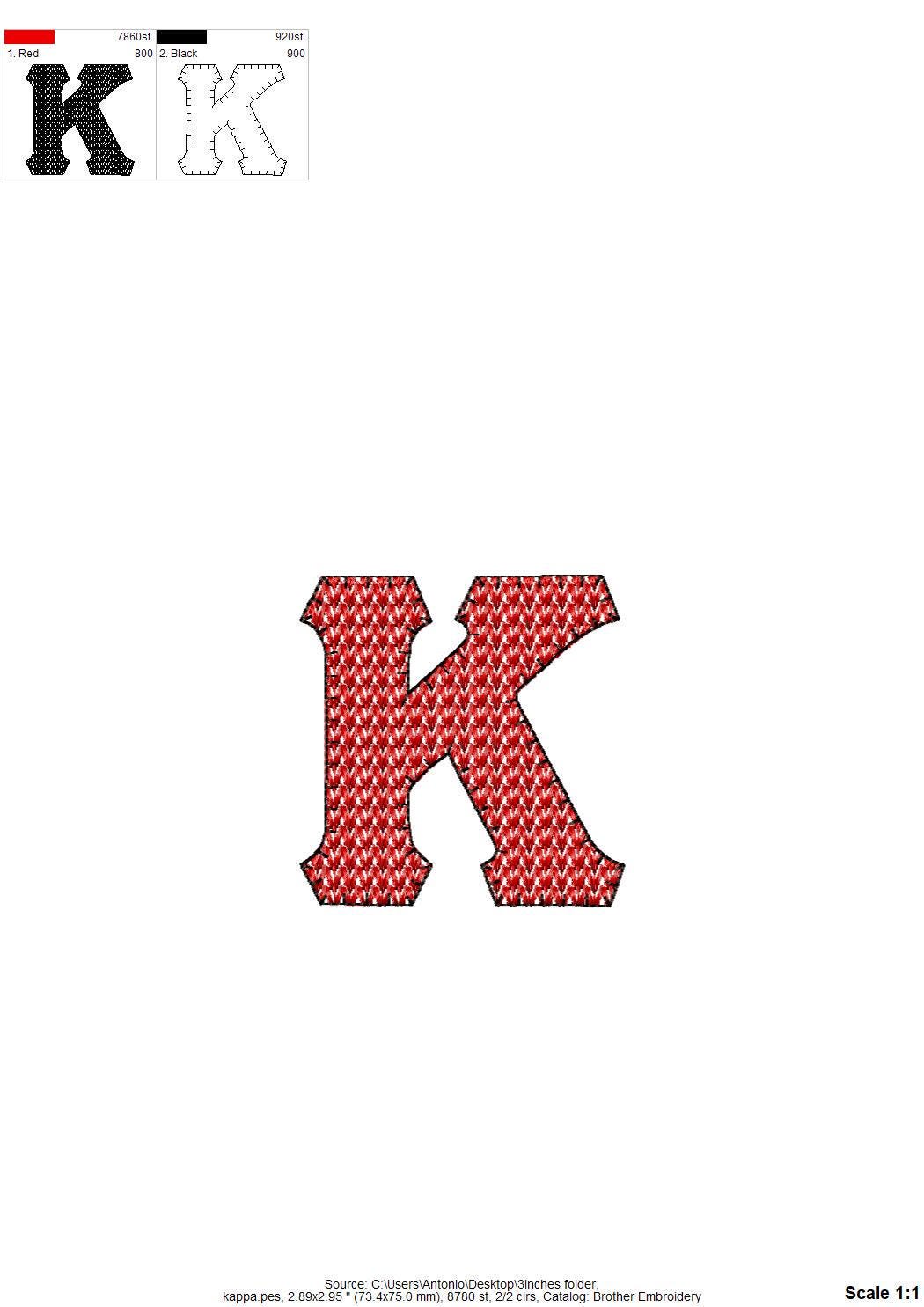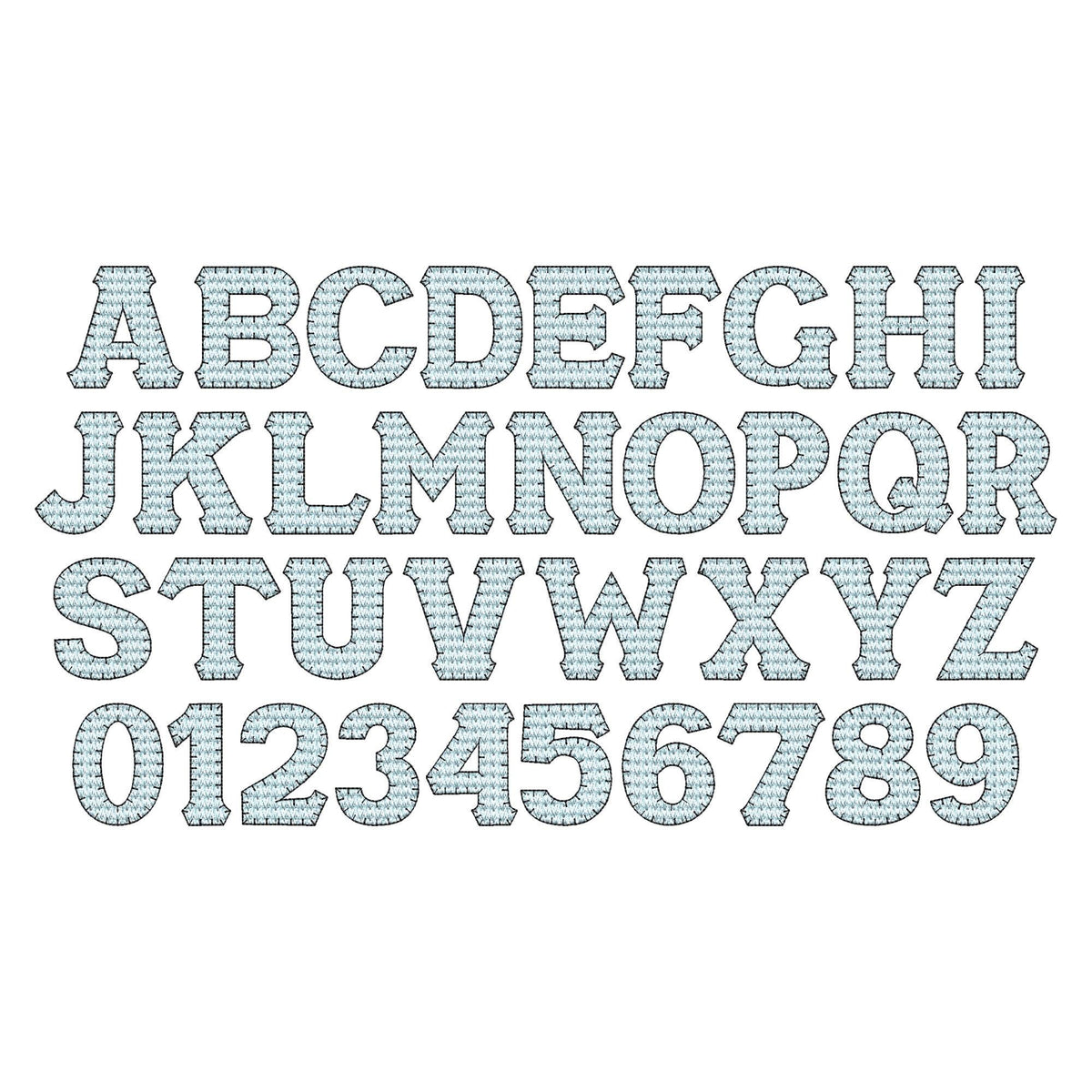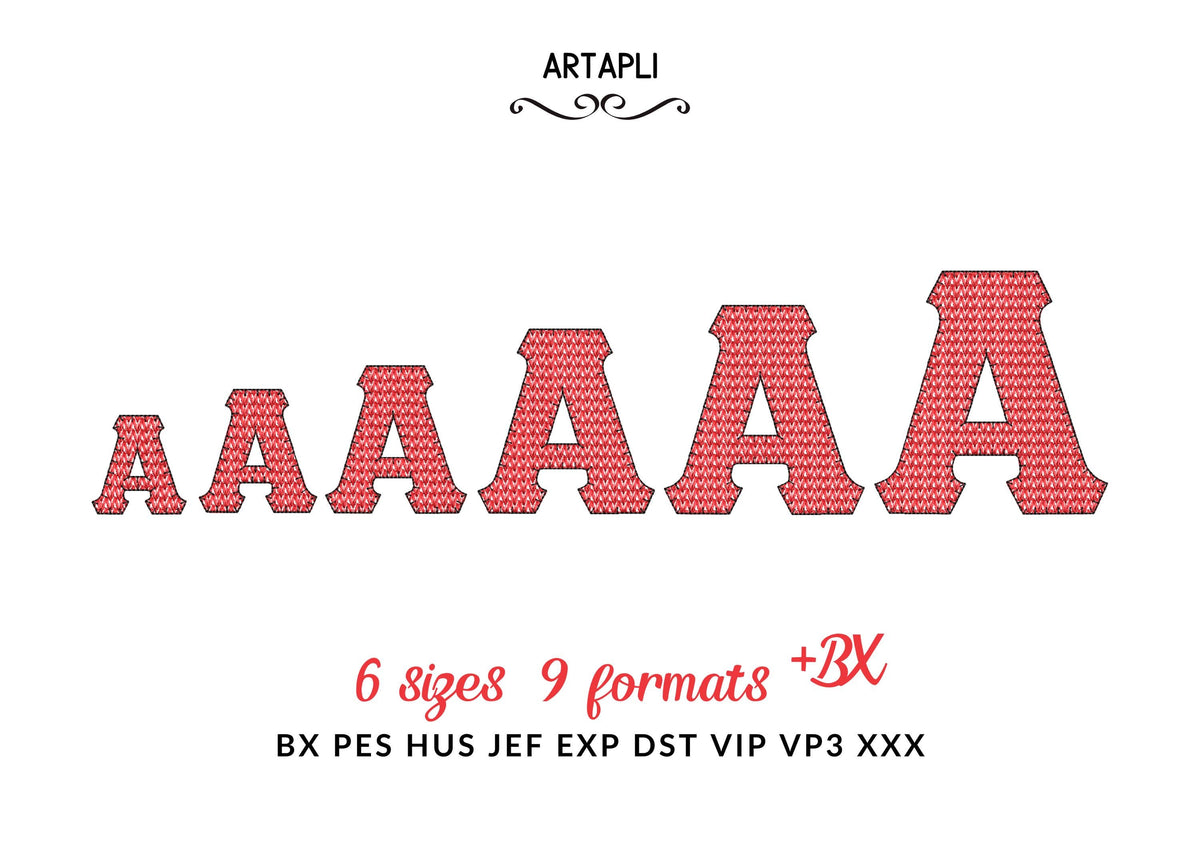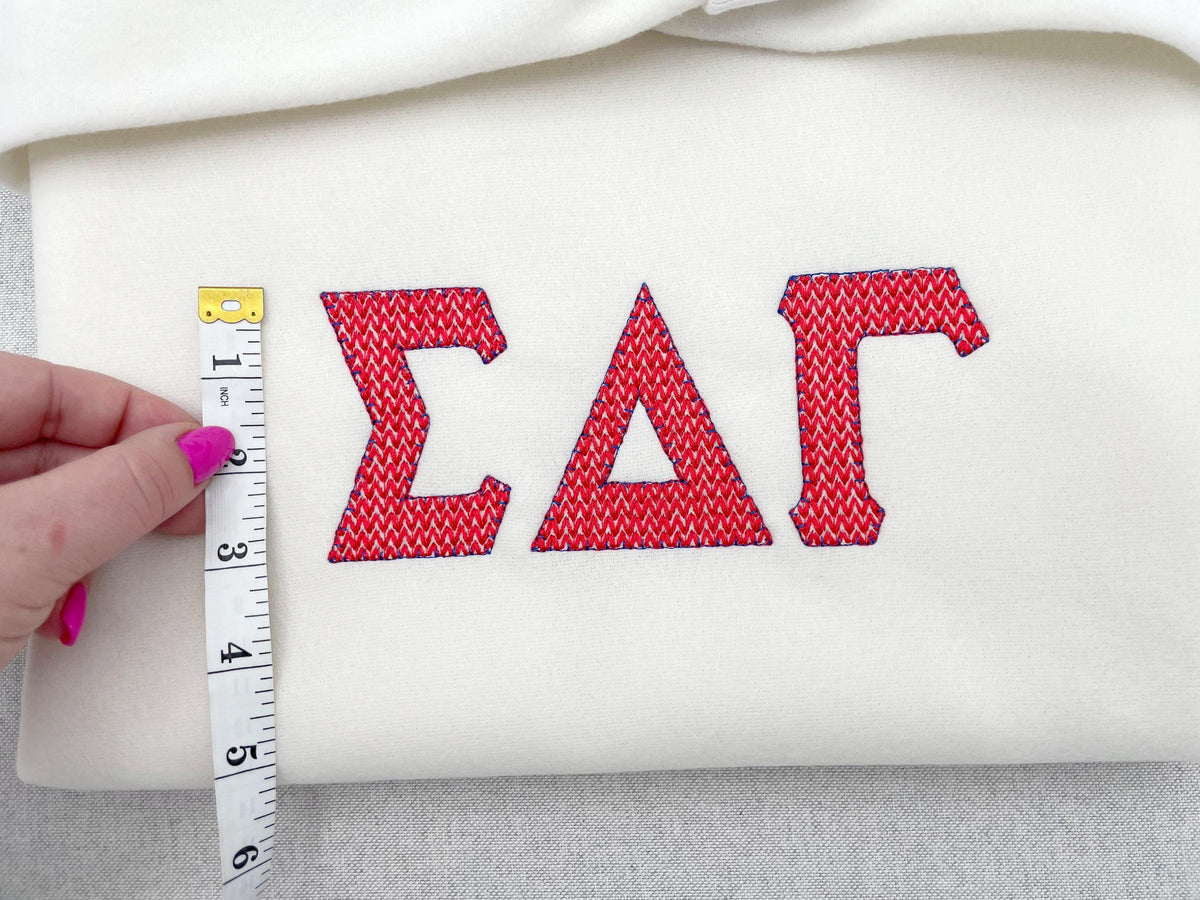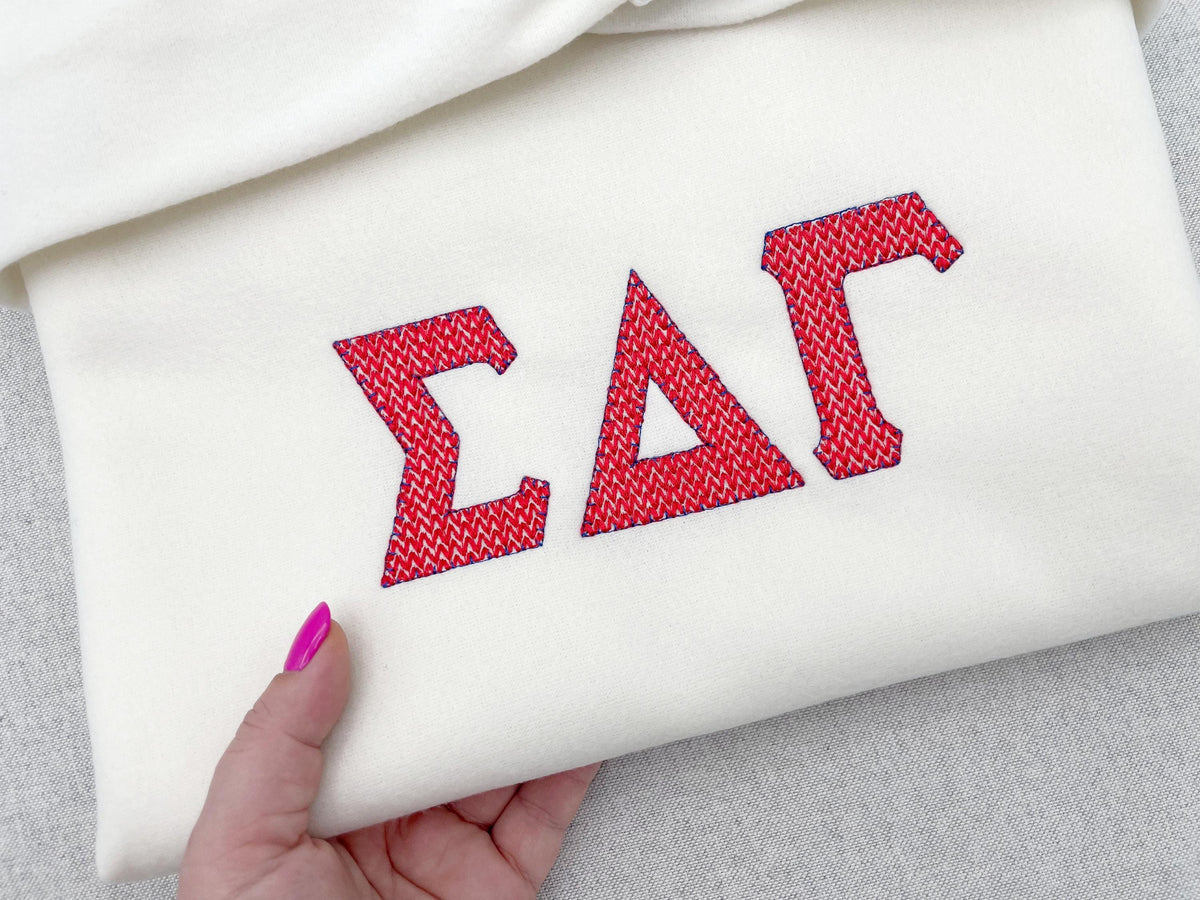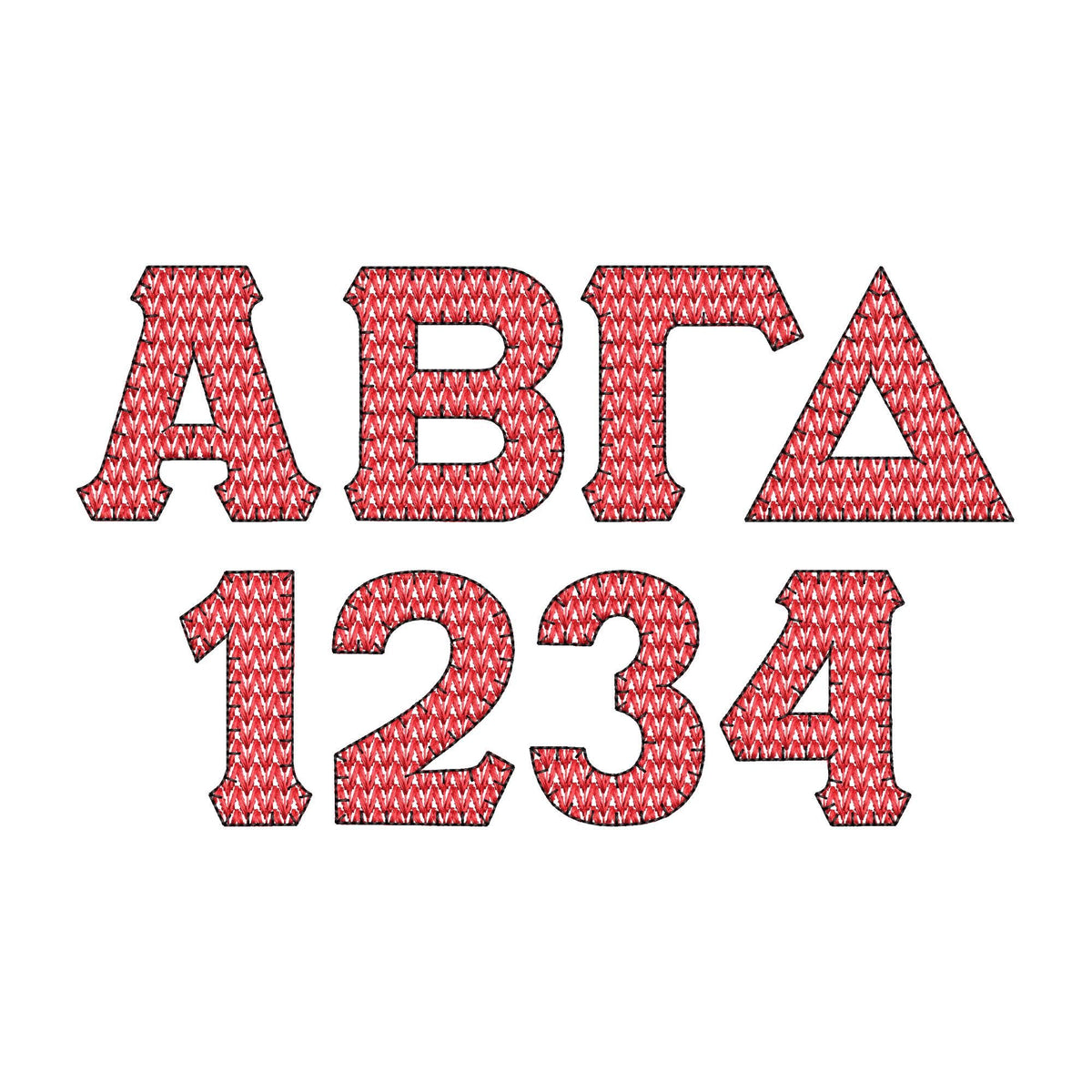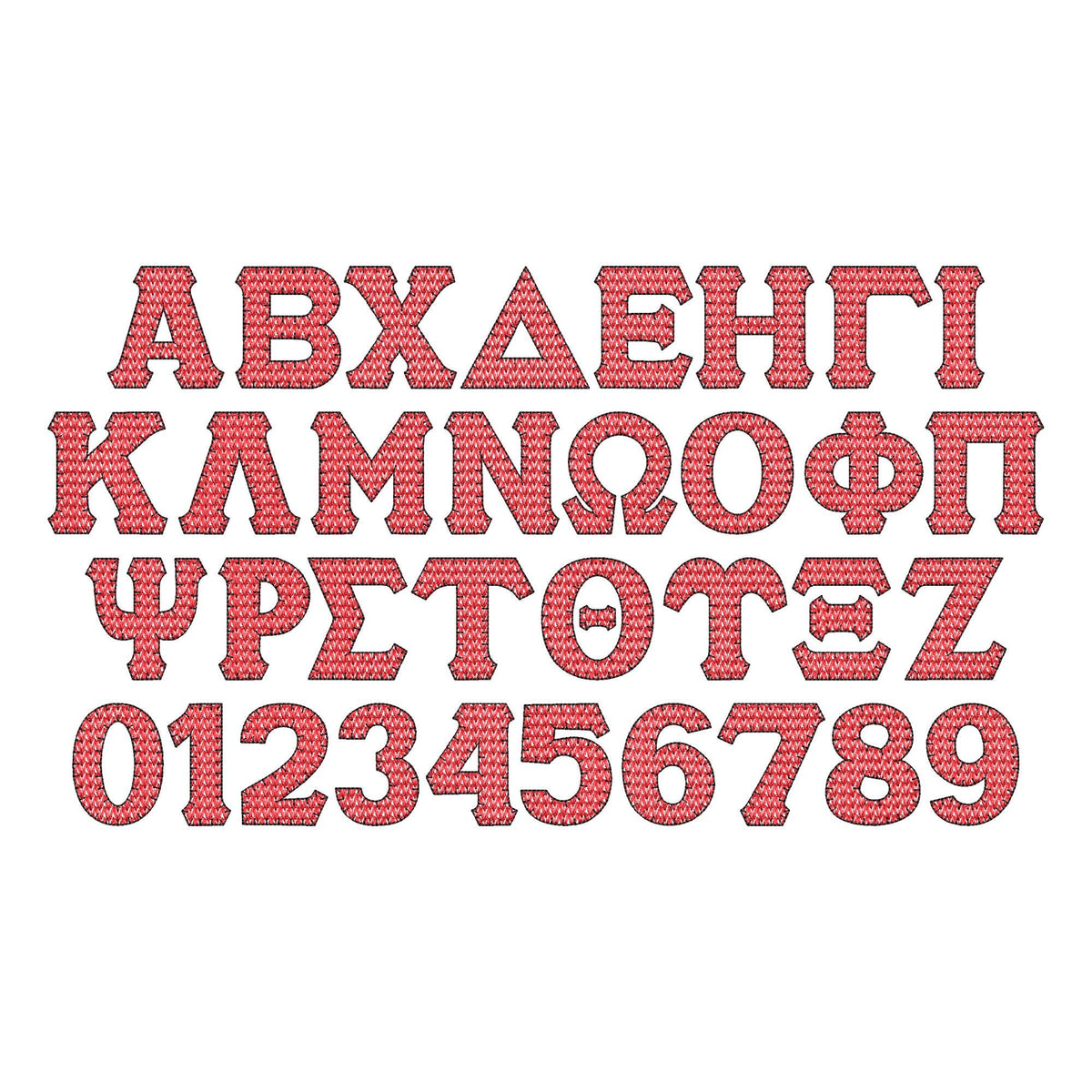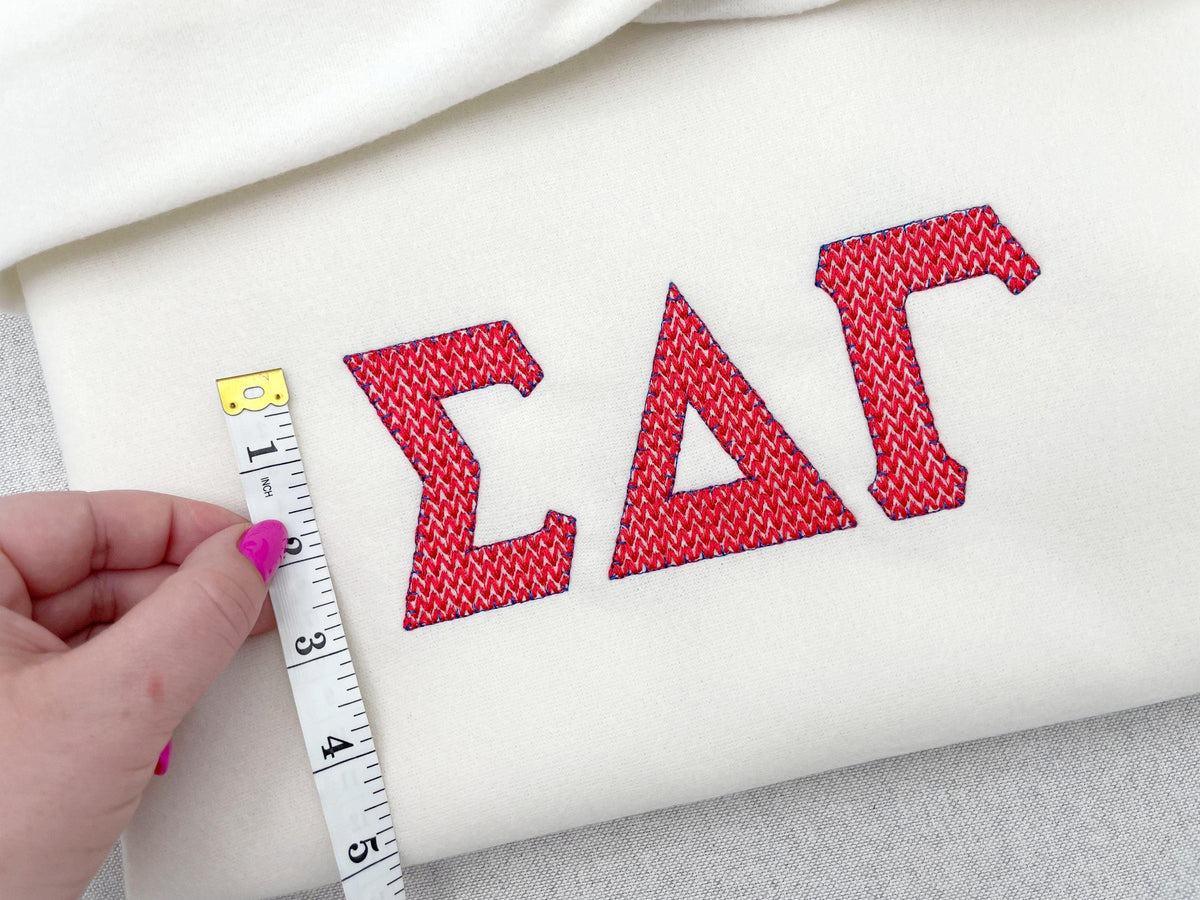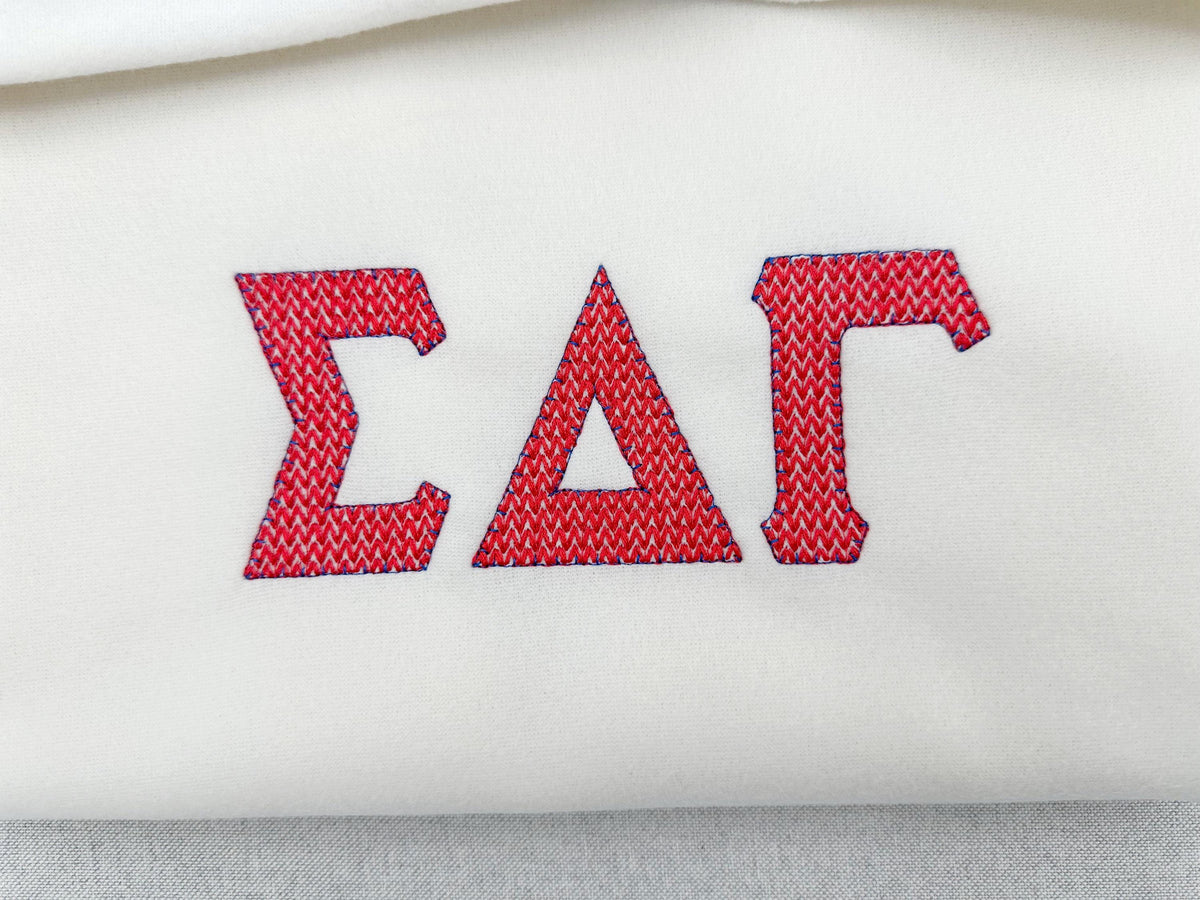
Knit Stitch Greek Font
Or click to open the linkA knit stitch font with a cozy, hand-knitted look, with the full Greek alphabet. Made for sorority and fraternity letters, monograms and textured names on sweatshirts and bags.
The letters come in six sizes: 1.5, 2, 2.5, 3, 3.5 and 4 inches. Includes the full Greek alphabet, numbers 0-9 and the English alphabet.